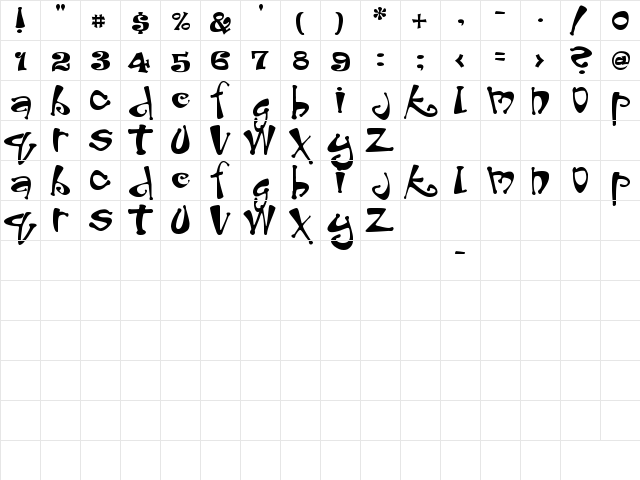
Peabody Regular
Design Context for Peabody Typeface
Peabody is a composed and adaptable typeface that performs quietly and consistently across a wide range of design contexts.